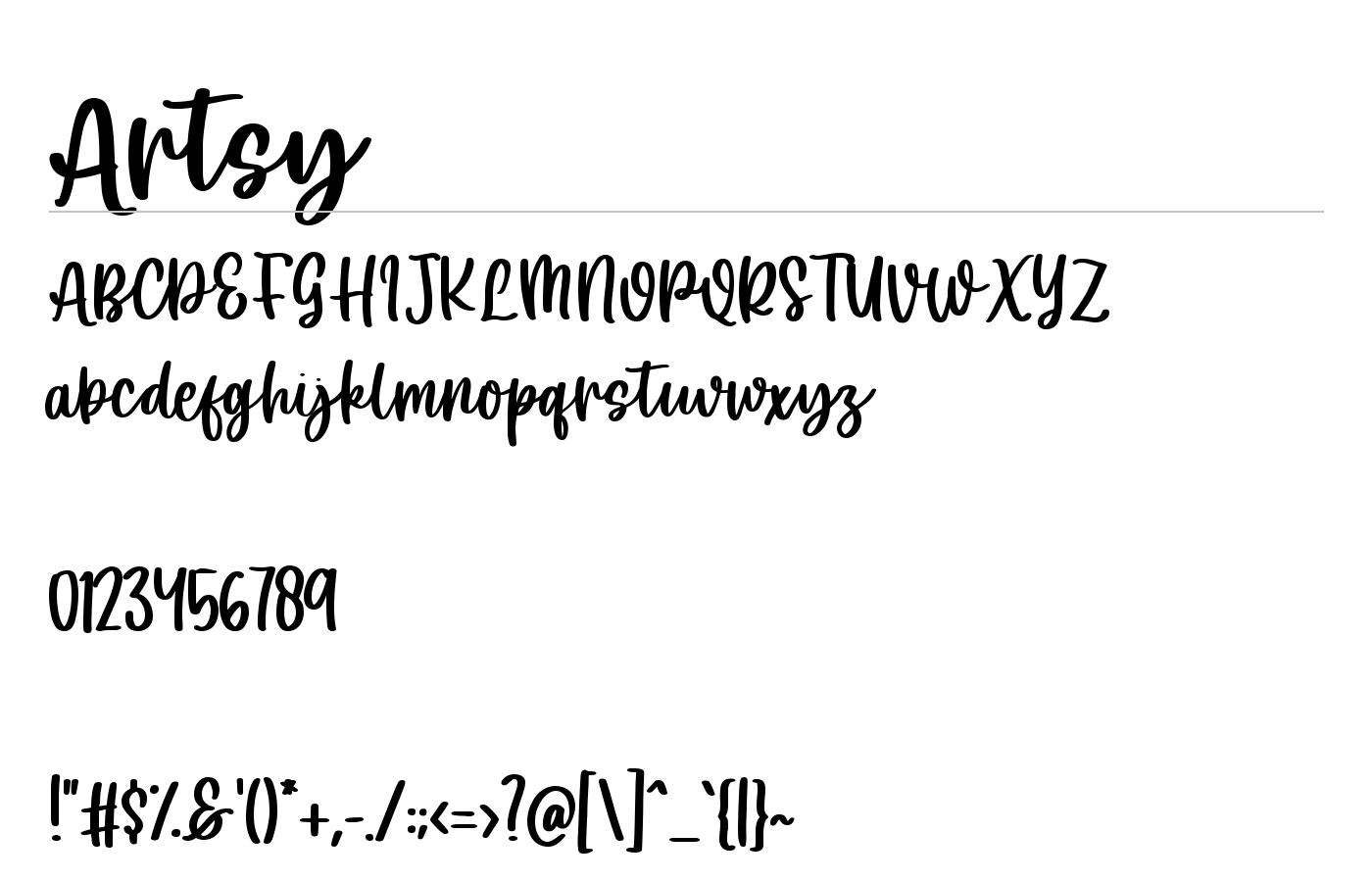
Artsy Font is a lively, handwritten script with a playful and casual charm. Its smooth, flowing strokes and slightly irregular letterforms give it a warm, personal feel, making it perfect for creative projects, invitations, and branding that seeks an approachable and artistic touch. This font stands out best in headlines, logos, and social media graphics where a friendly and informal vibe is desired.
Artsy Font
About Artsy Font
| Font family | Artsy Font |
| Designer | Dimas Prasetyo |